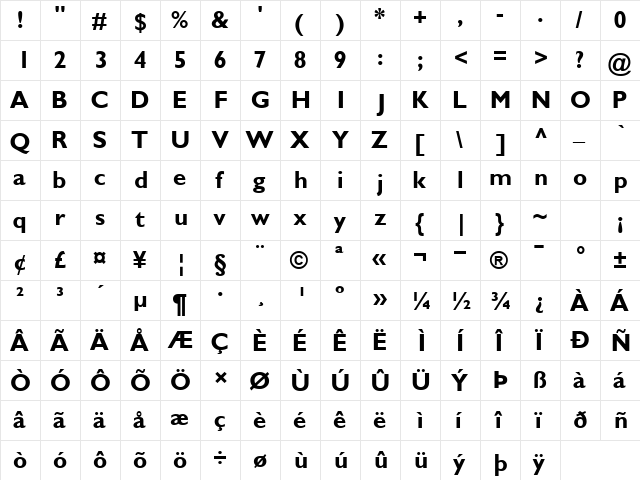
GimletSSK Bold
Design Context for GimletSSK Typeface
GimletSSK is a composed and adaptable typeface that performs quietly and consistently across a wide range of design contexts. The heavy weight commands attention and anchors typographic hierarchies.